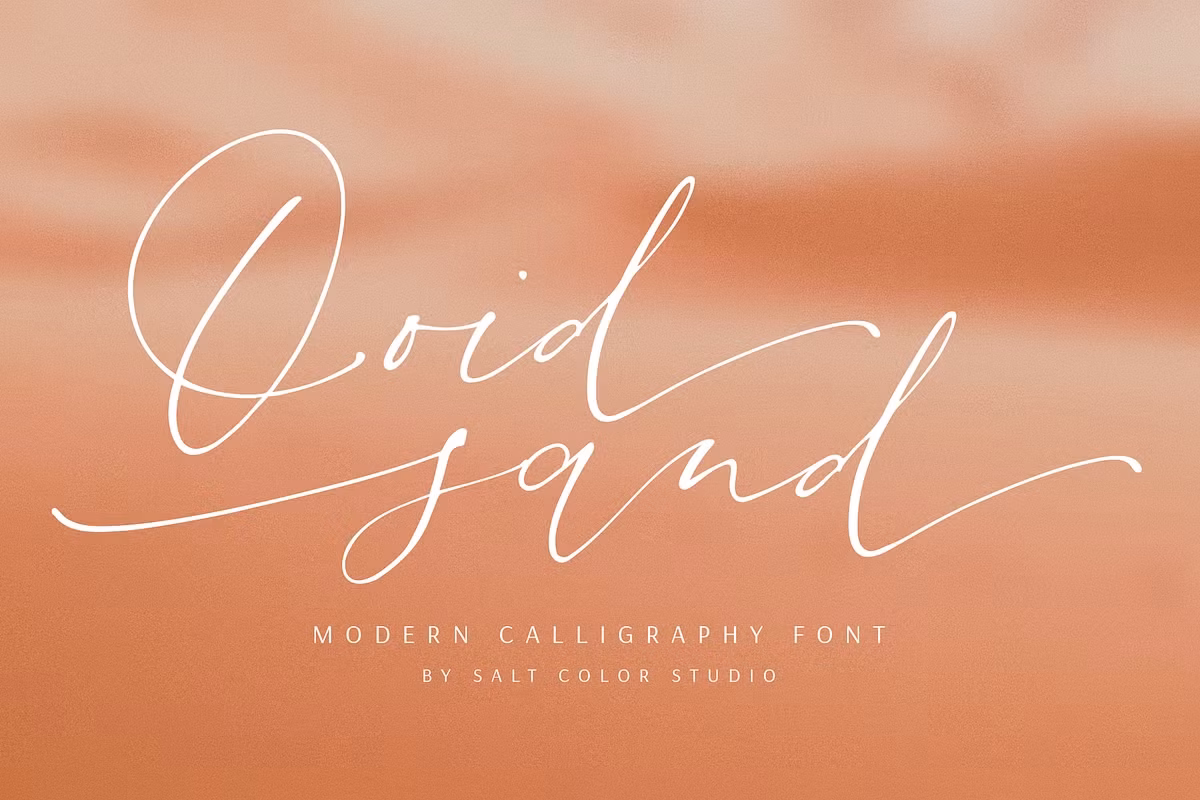
Ooid Sand Calligraphy Script Font Free Download
Ooid Sand Calligraphy Script Font Free Download is an elegant and artistic typeface that adds a sophisticated, handwritten feel to any design. Perfect for wedding invitations, branding, logos, and greeting cards, Ooid Sand’s flowing, calligraphic strokes provide a personal touch to your projects. Its smooth, organic curves make it ideal for designs that require an authentic, artistic look.